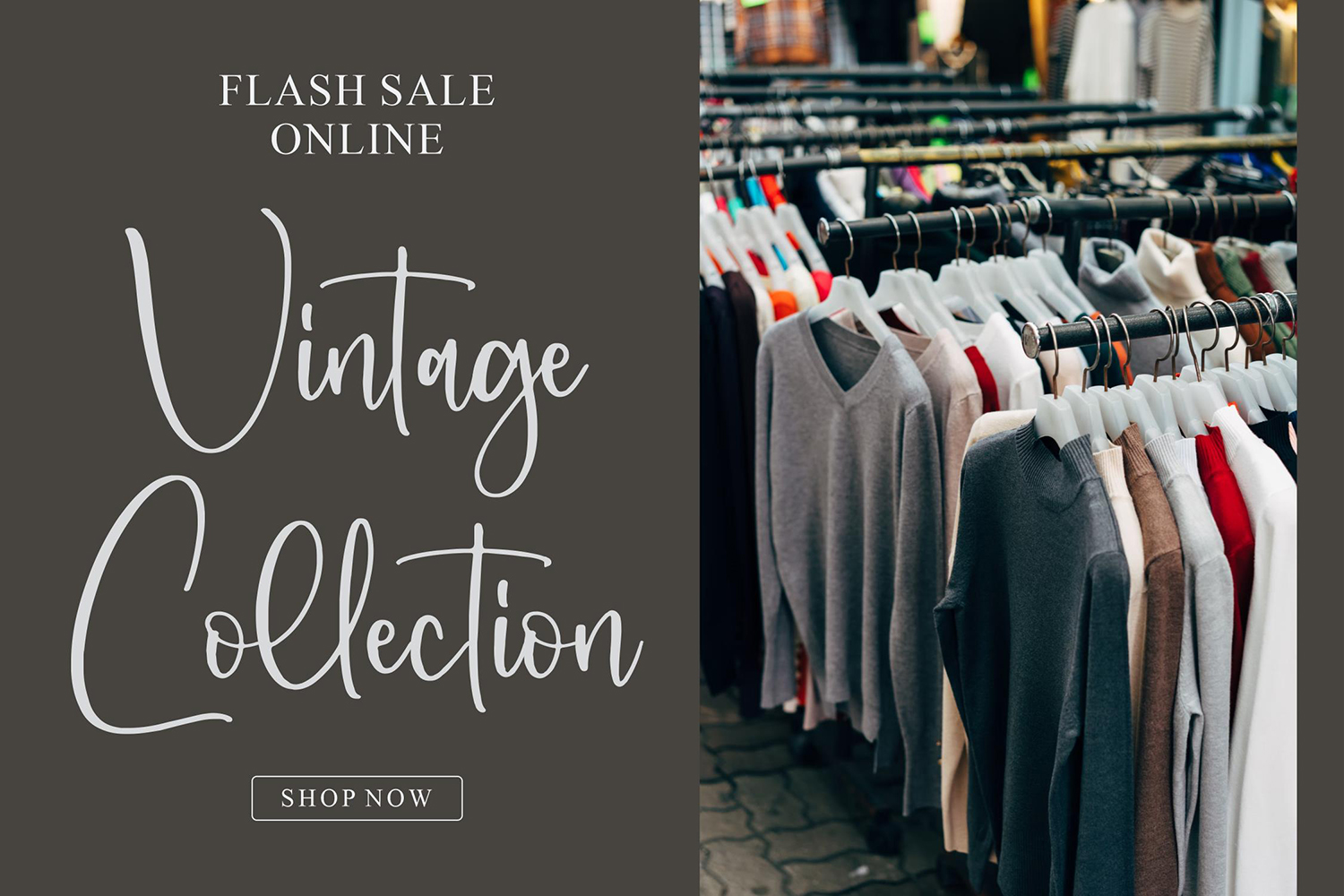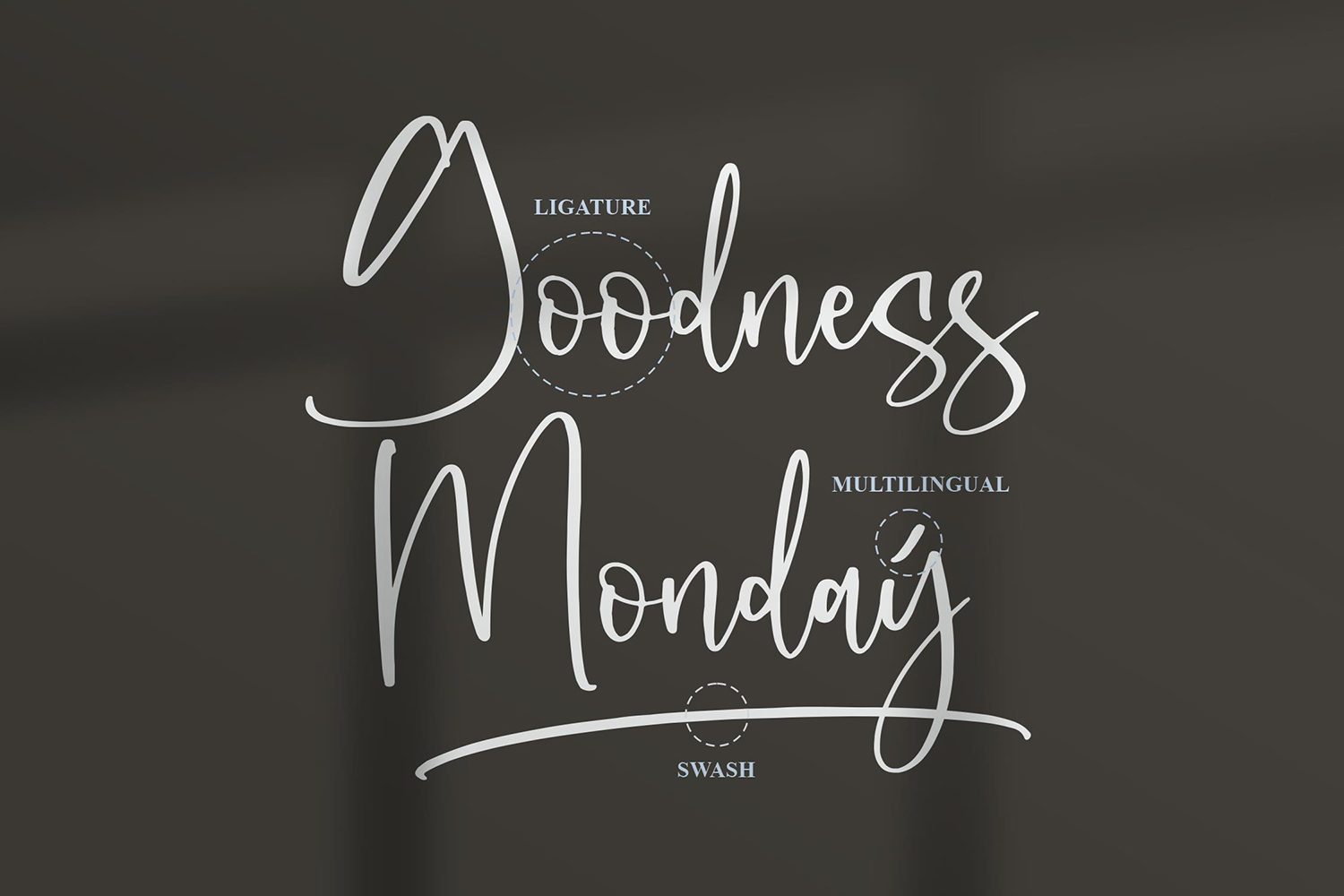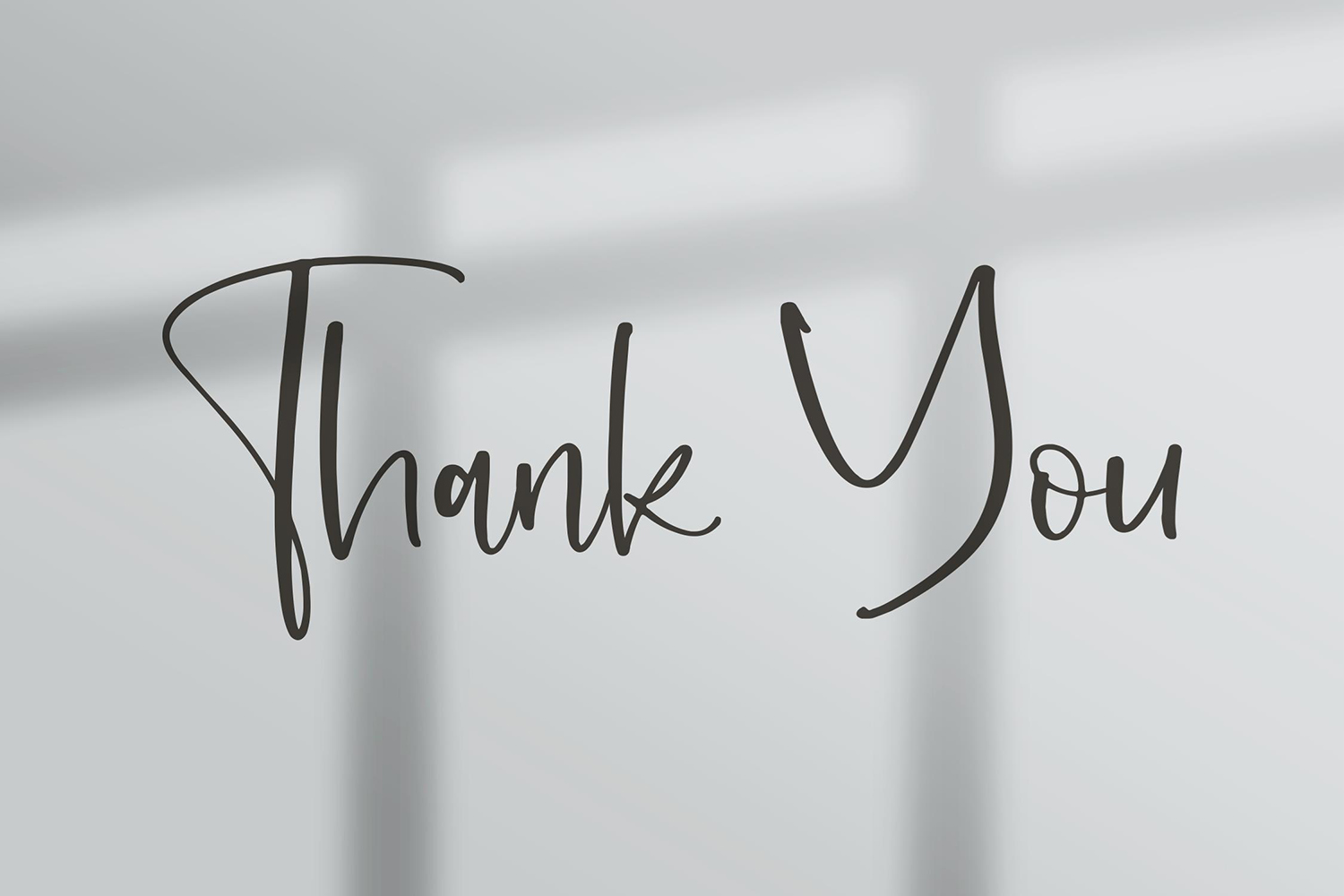
Karlissta Free Font
Karlissta Free Font is a breathtakingly beautiful script that exudes elegance and grace with every stroke. Its fluid lines and delicate curves dance across the page, creating a sense of effortless beauty that is both mesmerizing and emotional. This font is the perfect choice for any project that requires a touch of class and sophistication. It will make your words come alive with its stunning style and emotional impact.